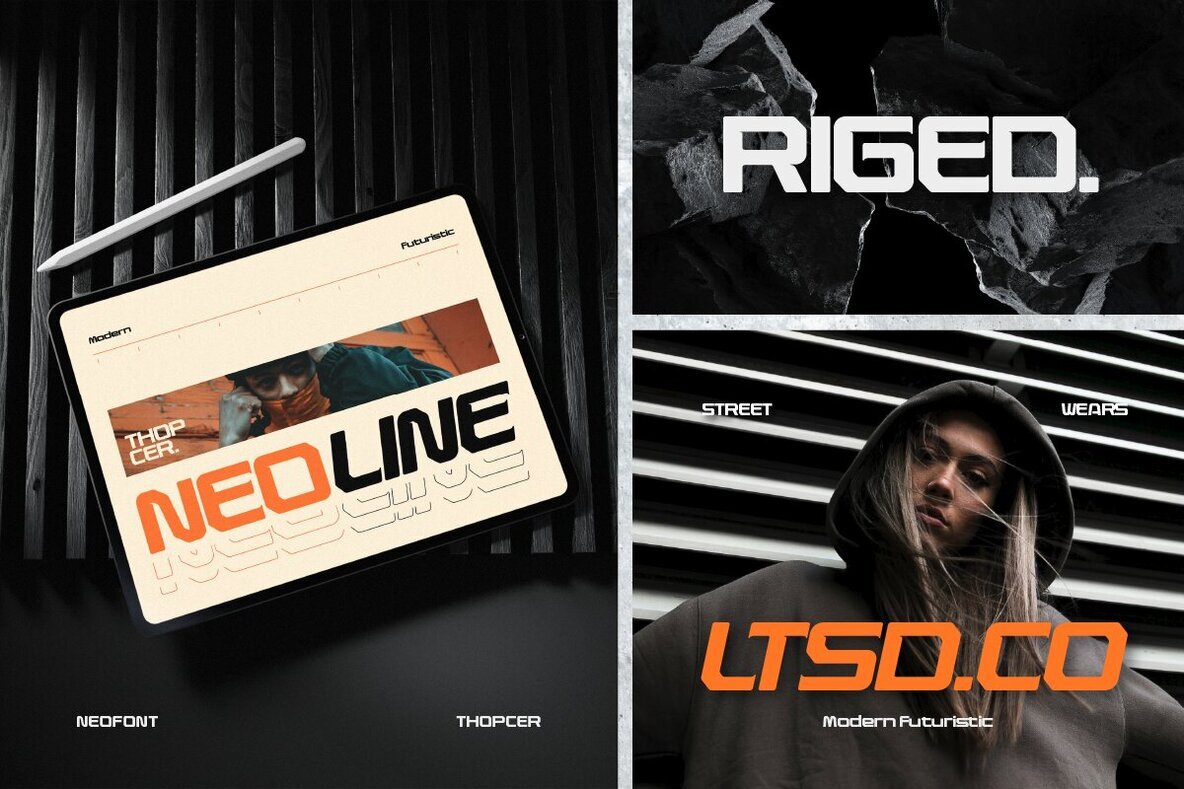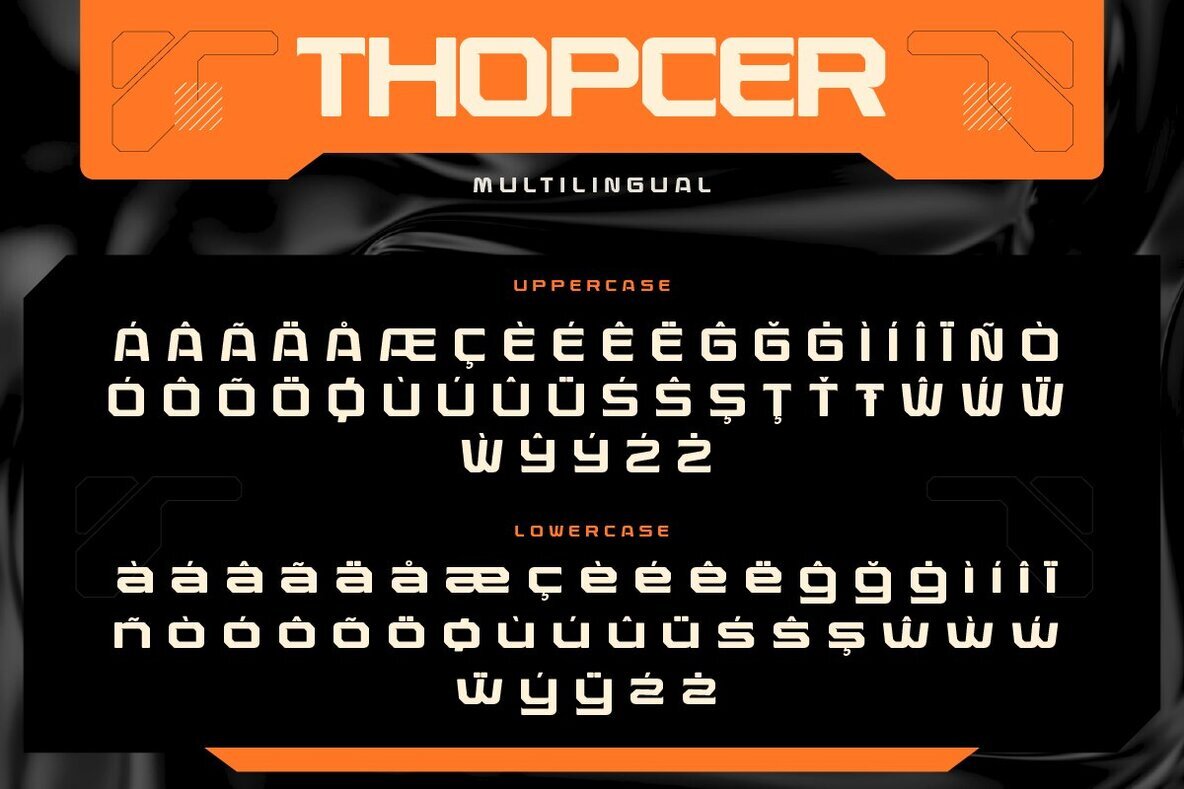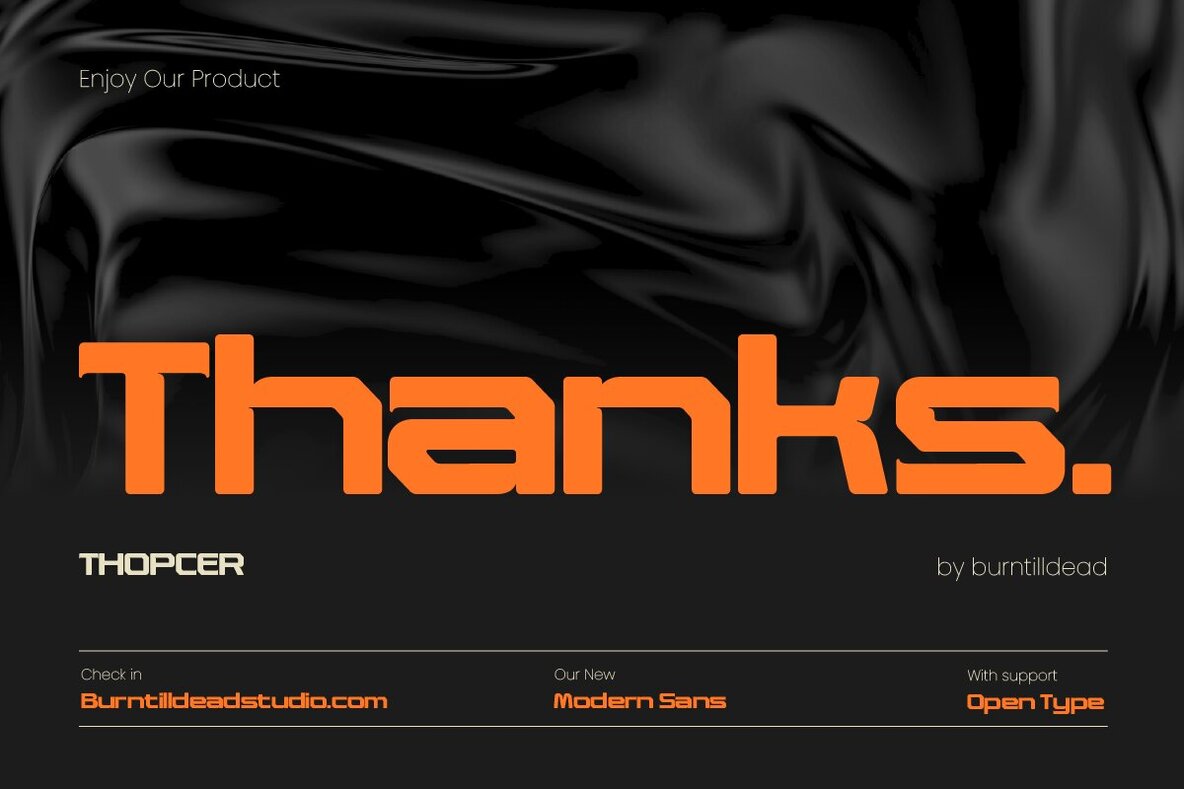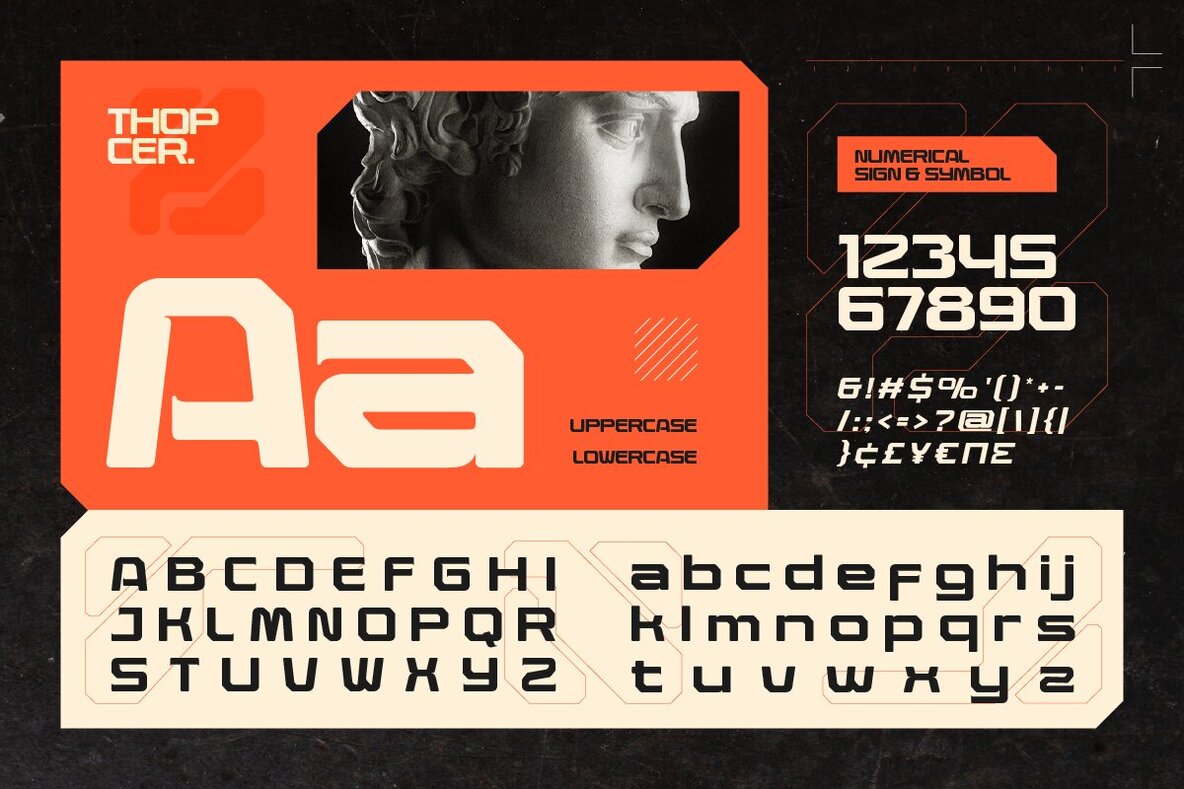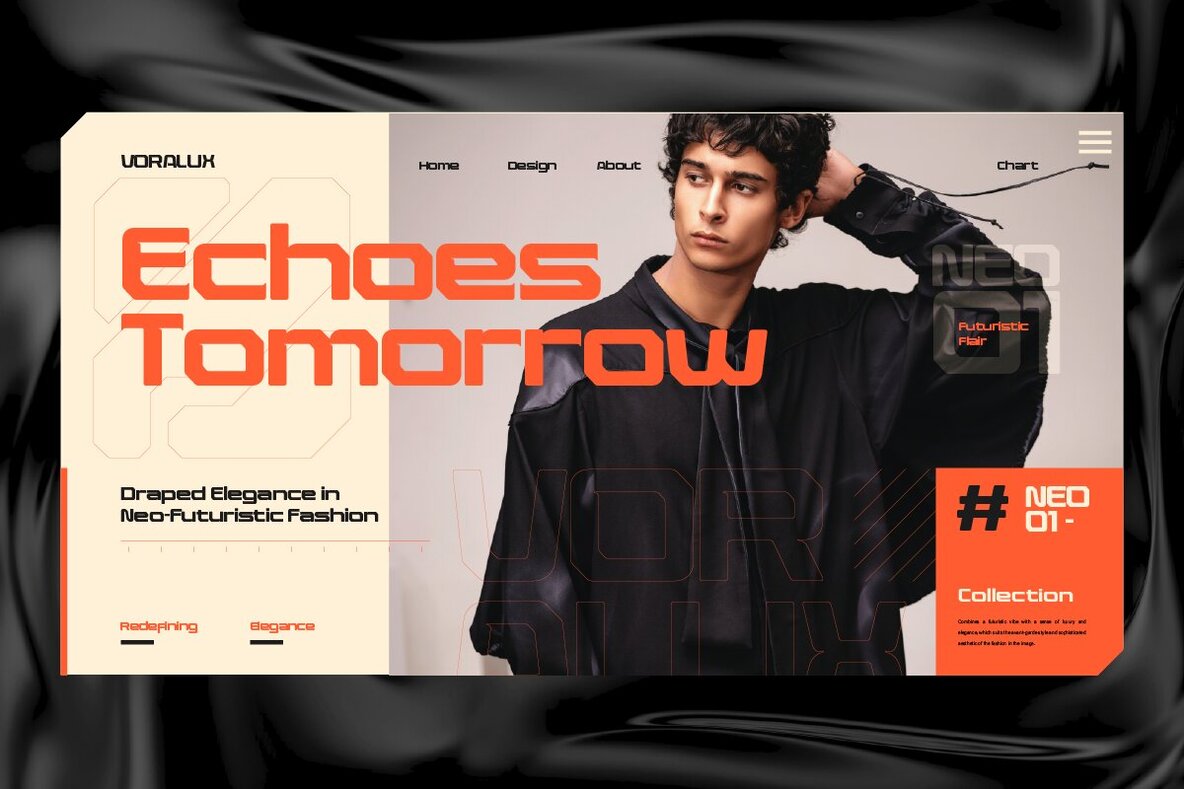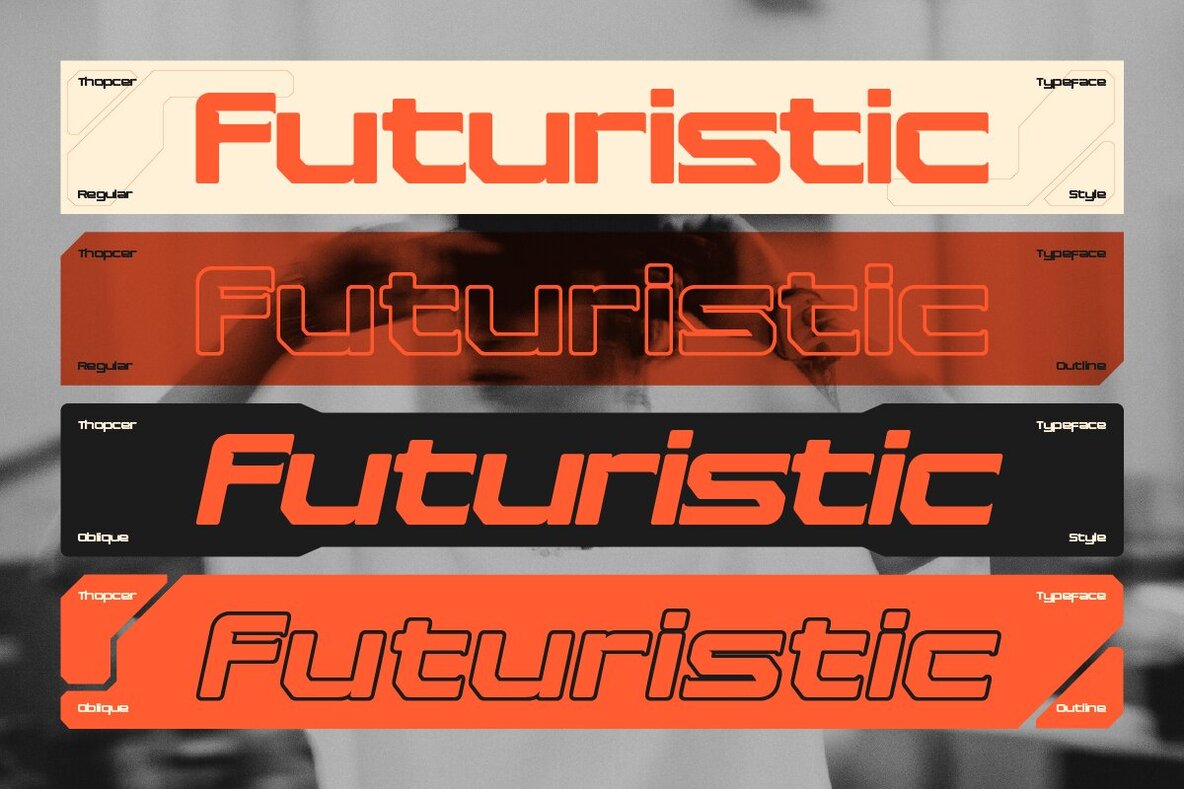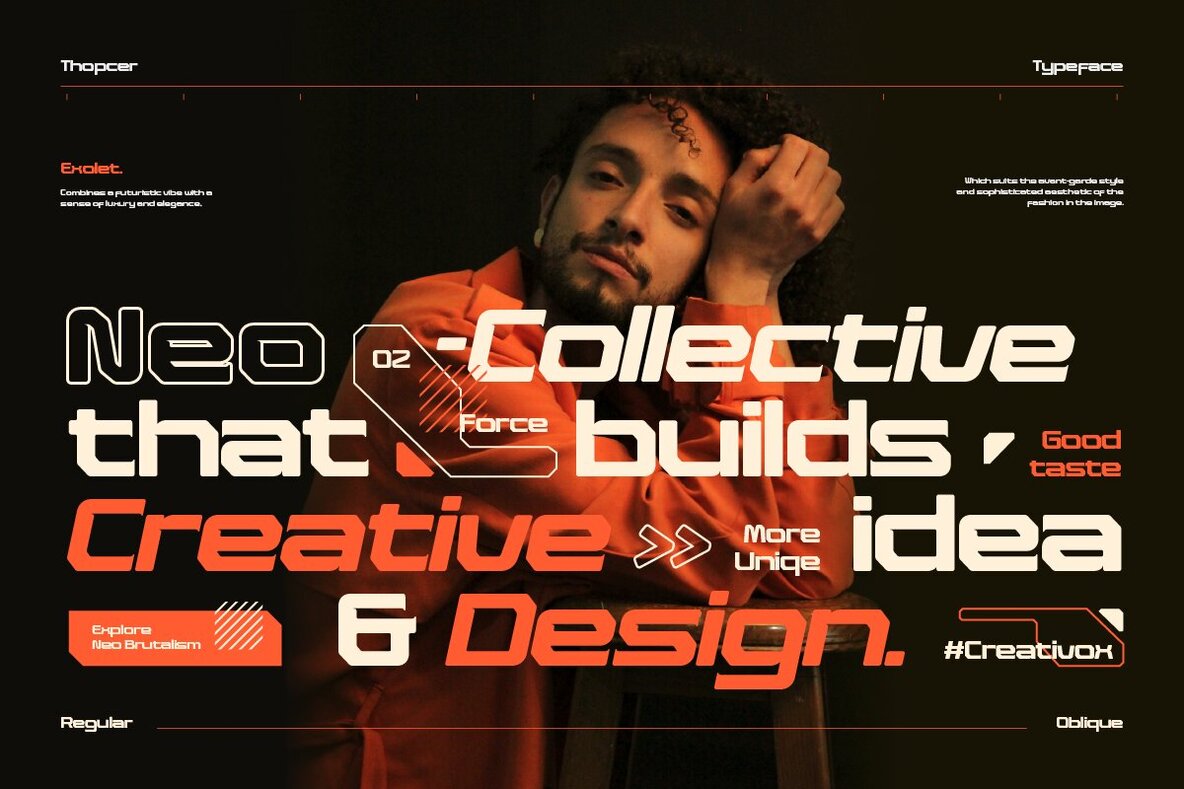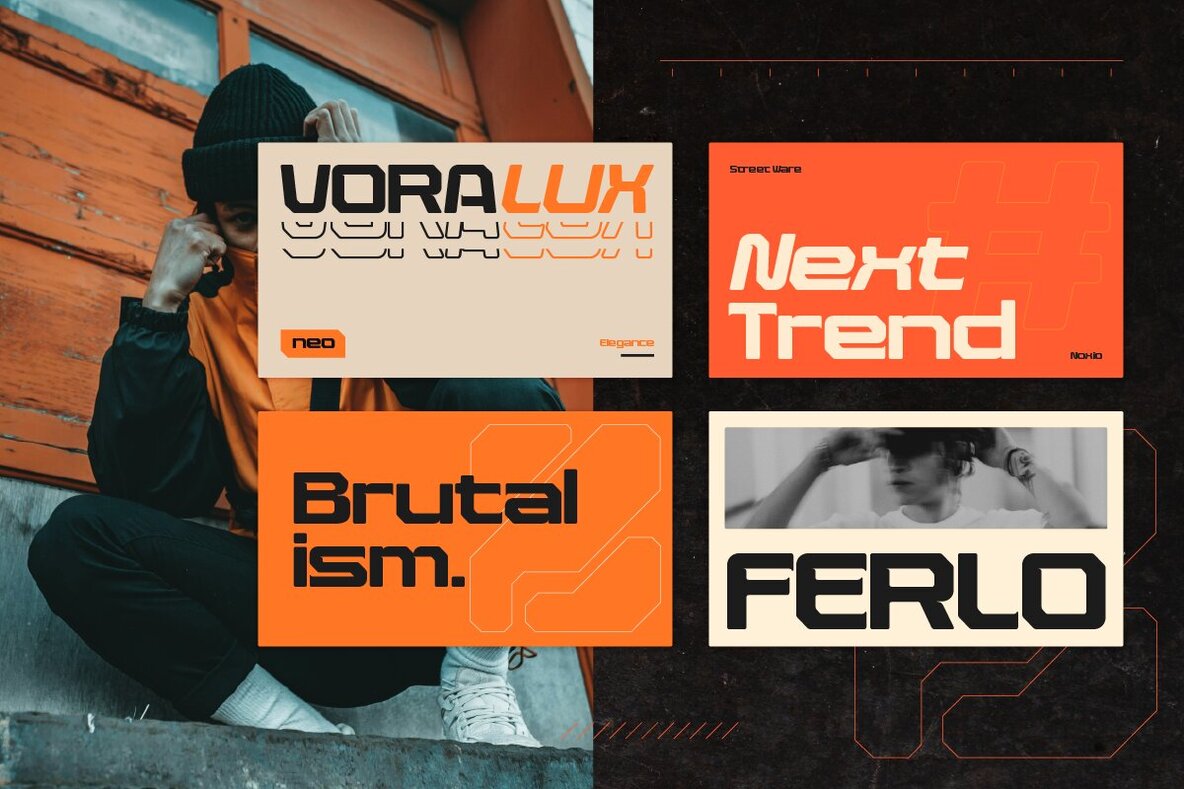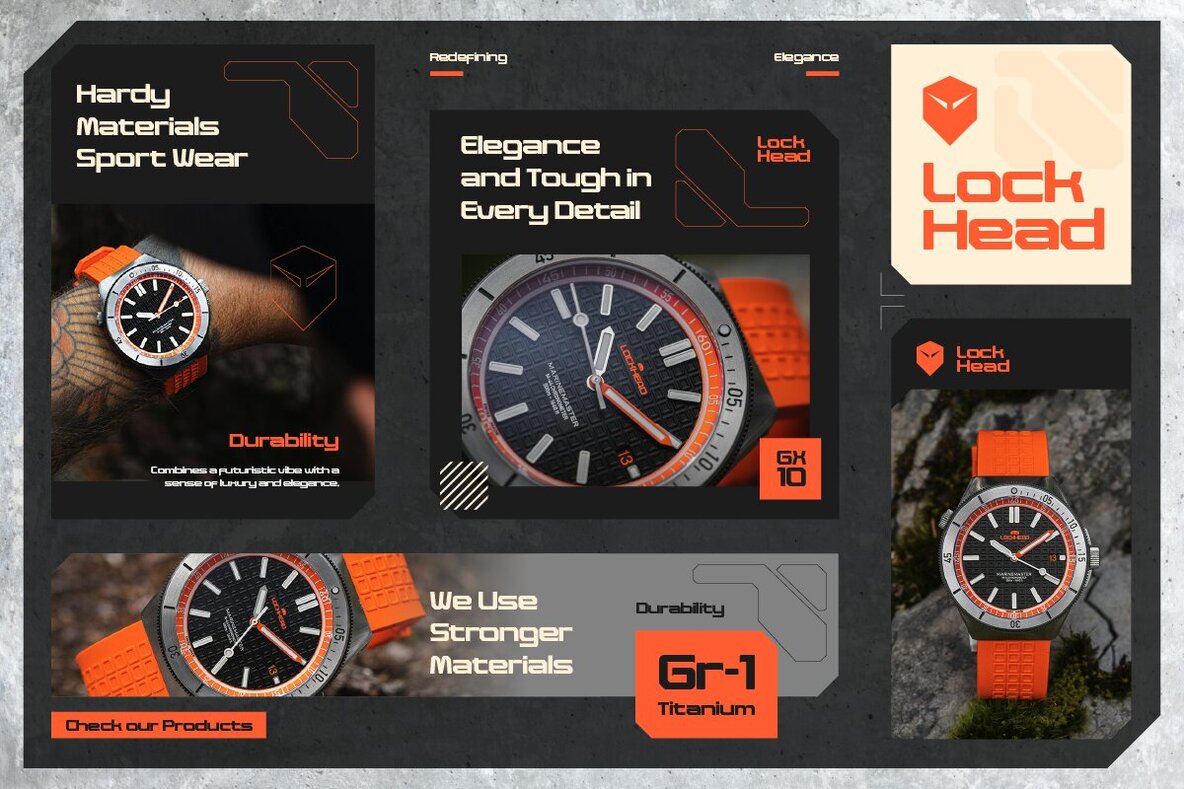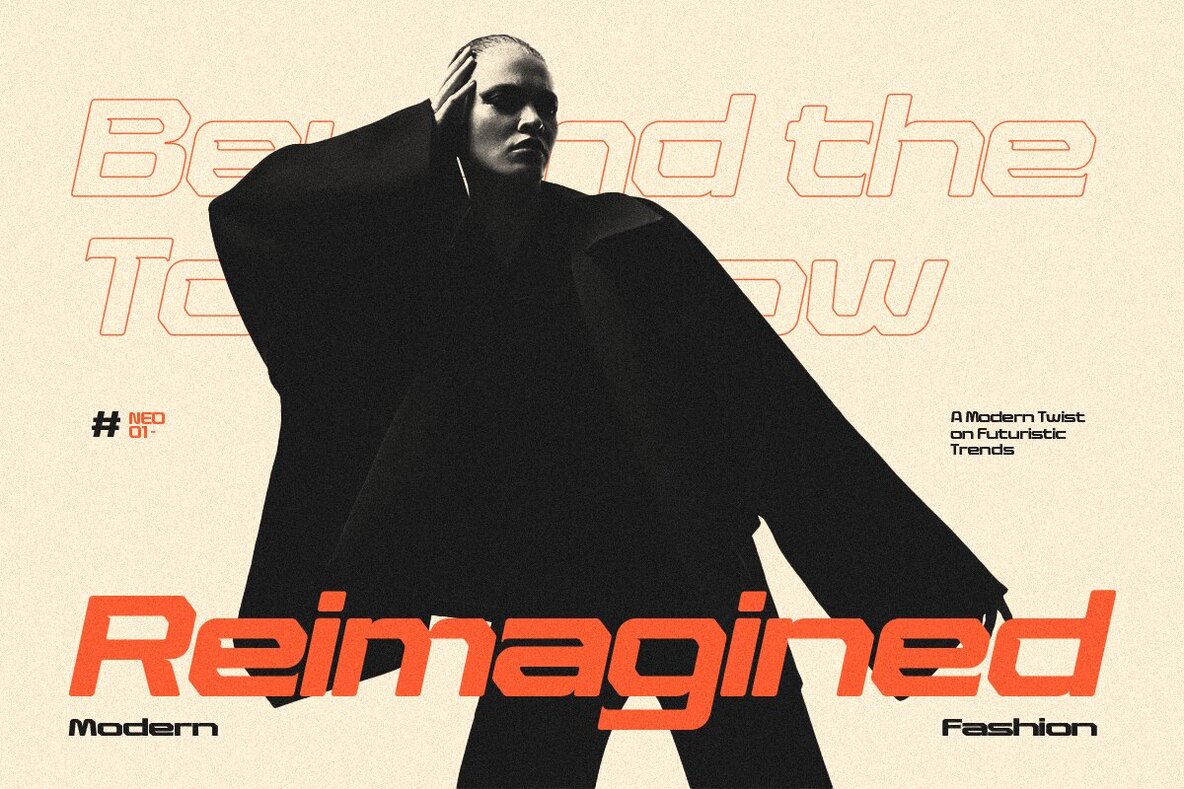
Thopcer Font
Introducing, Thopcer, our neo futuristic font with 4 styles. This typeface blend the technology sleek and modern aesthetics also exude futuristic vibe with sense of luxury, elegance, innovative and stylish. The design features sharp edges and clean lines creating unique letterforms. Which suites the avant-garde style and sophisticated aesthetic of the fashion image. Perfect for tech-themed projects, sci-fi designs, games, website or anything that seeks to convey a sense of forward-thinking. Features: